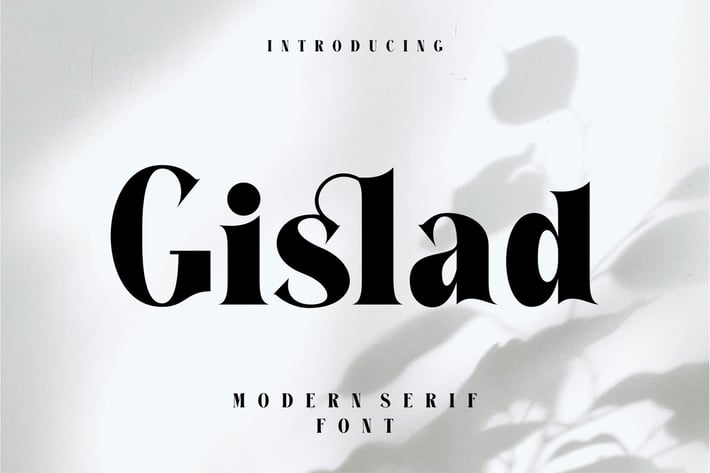
Gisland Modern Serif Font
Gisland is a elegant and classy serif typeface – This font is both modern and nostalgic and works great for logos, magazine, social media. Already matched up and ready to be used together for your next design!
For those of you who are needing a touch of elegant, stylish, classy, chic and modernity for your designs, this font was created for you!
Gisland was built with OpenType features and includes ligatures, numbers, punctuation, and it also supports other languages.